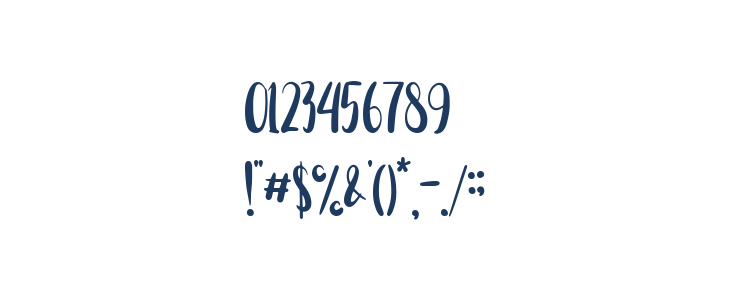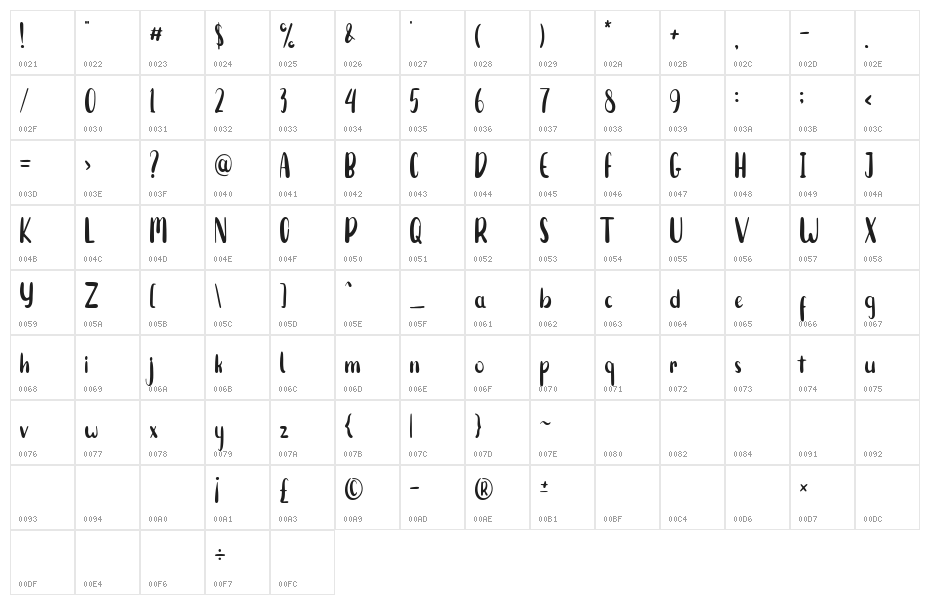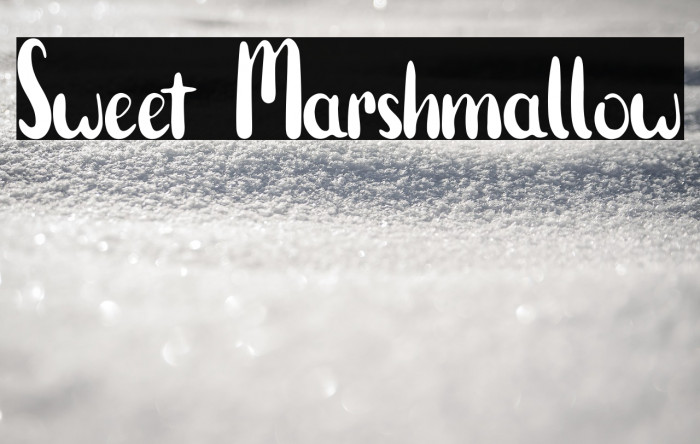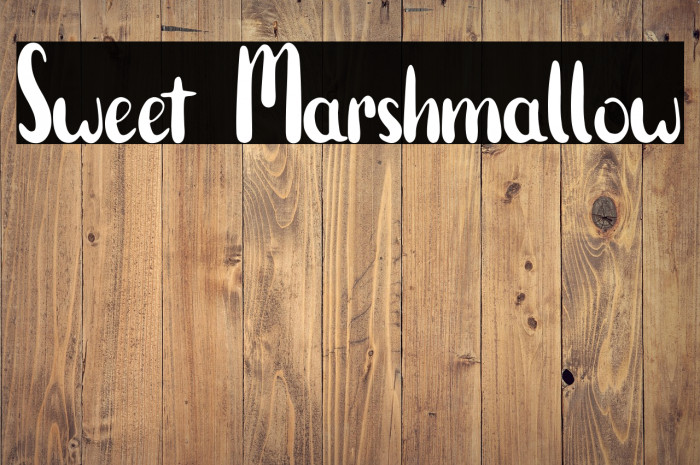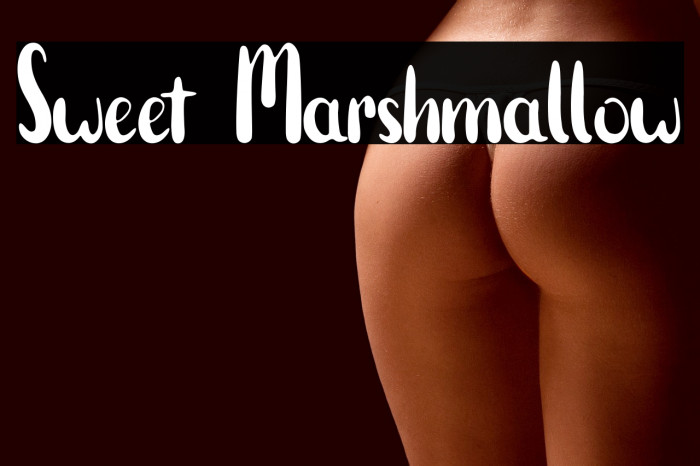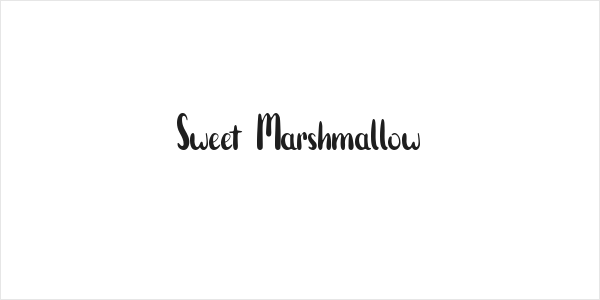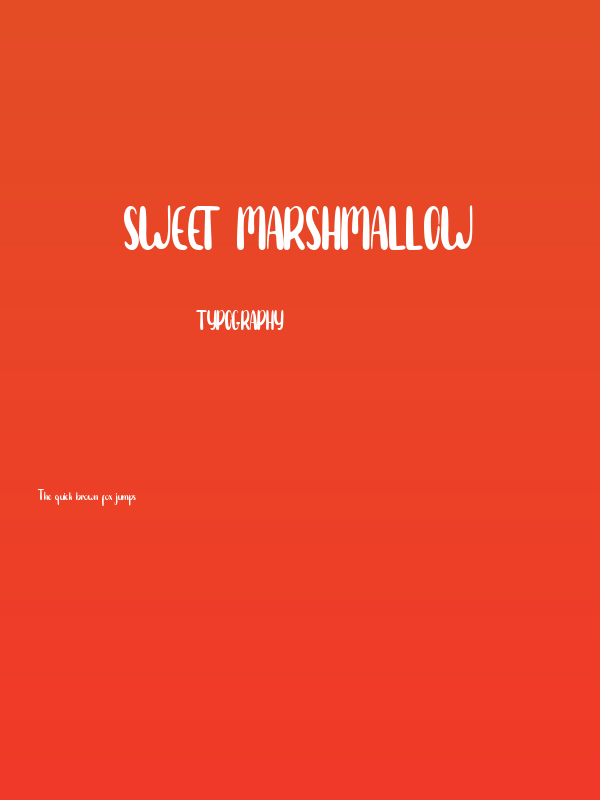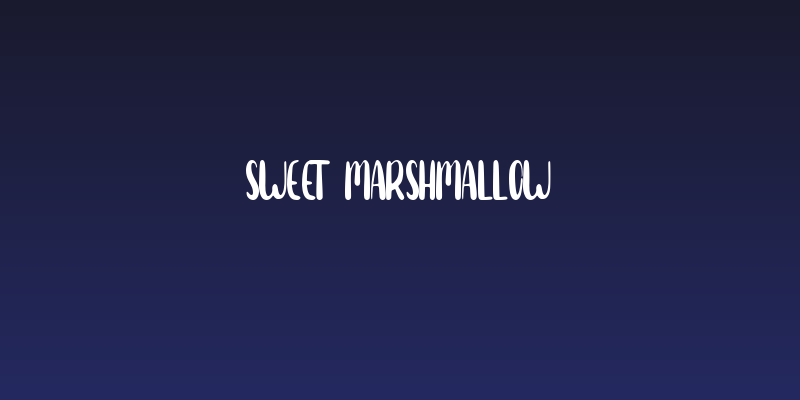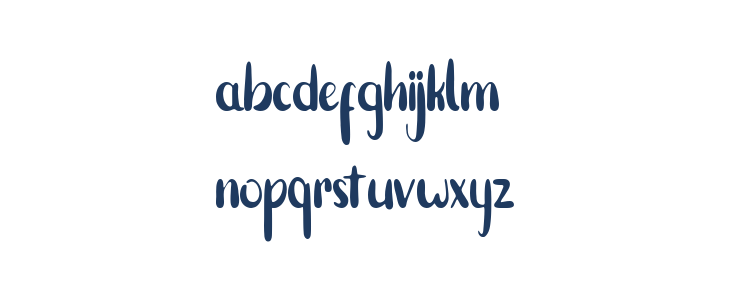
Sweet Marshmallow Font
Sweet Marshmallow Description
This playful and whimsical font features bold, rounded characters with a hand-drawn feel. The letters have a consistent thickness, giving them a smooth and cohesive appearance. The uppercase and lowercase letters are well-balanced, with a slight slant that adds a dynamic touch. The numbers and special characters maintain the same playful style, making this font versatile for various creative projects. Its unique style is reminiscent of handwritten notes, making it perfect for adding a personal touch to designs.
| Proposed Projects | Ideal for children's books, greeting cards, playful branding, and social media graphics. |